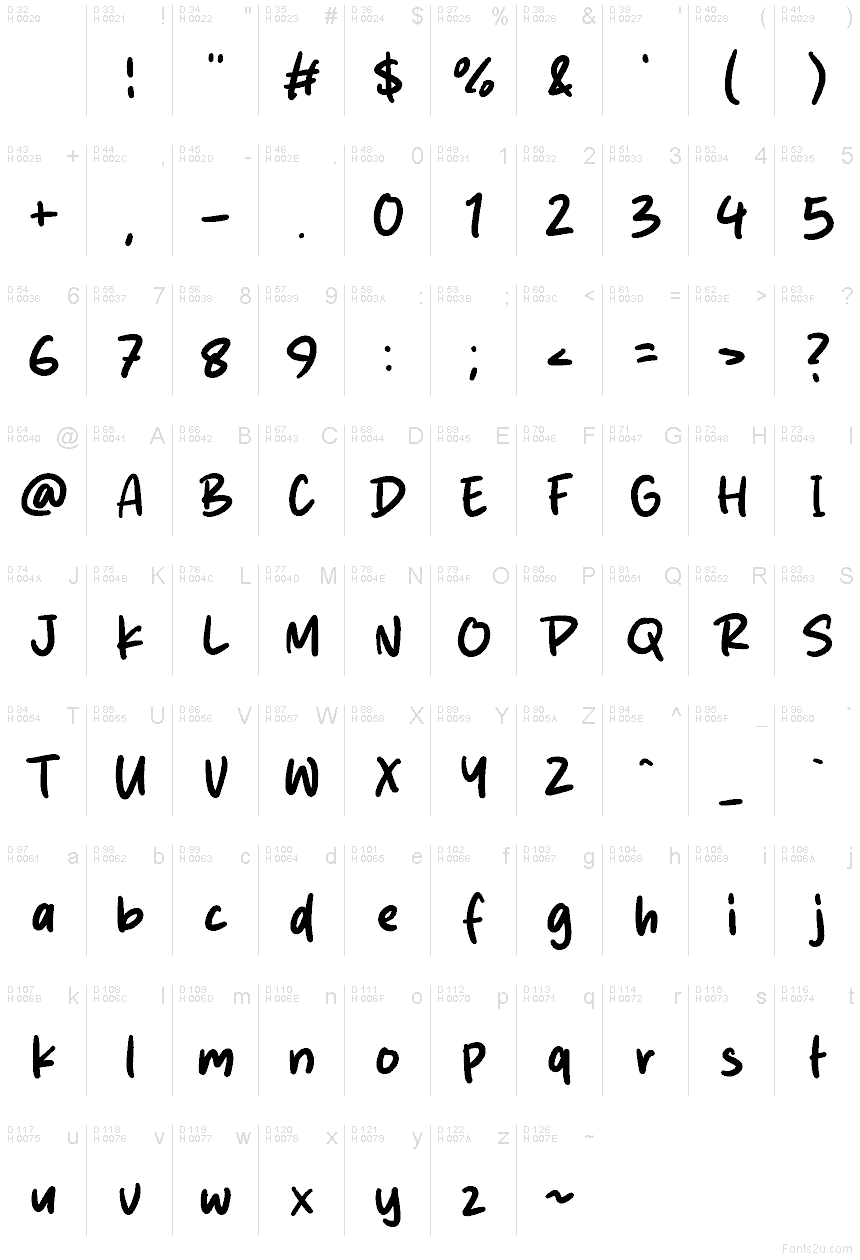
Bingtea
Bingtea font, by Origin Type, is a handwritten font that captures hand-drawn aesthetics and casual charm with its modern appeal. It has a friendly appearance with coherent letters in terms of their design shape and size to offer an inviting impression for the reader.
The free handwritten font will make an excellent selection for posters, packaging designs, invitation cards, postcards, stationery items or even logos. Other potential applications include business cards, greeting cards, websites layouts and all kinds of digital media publications.